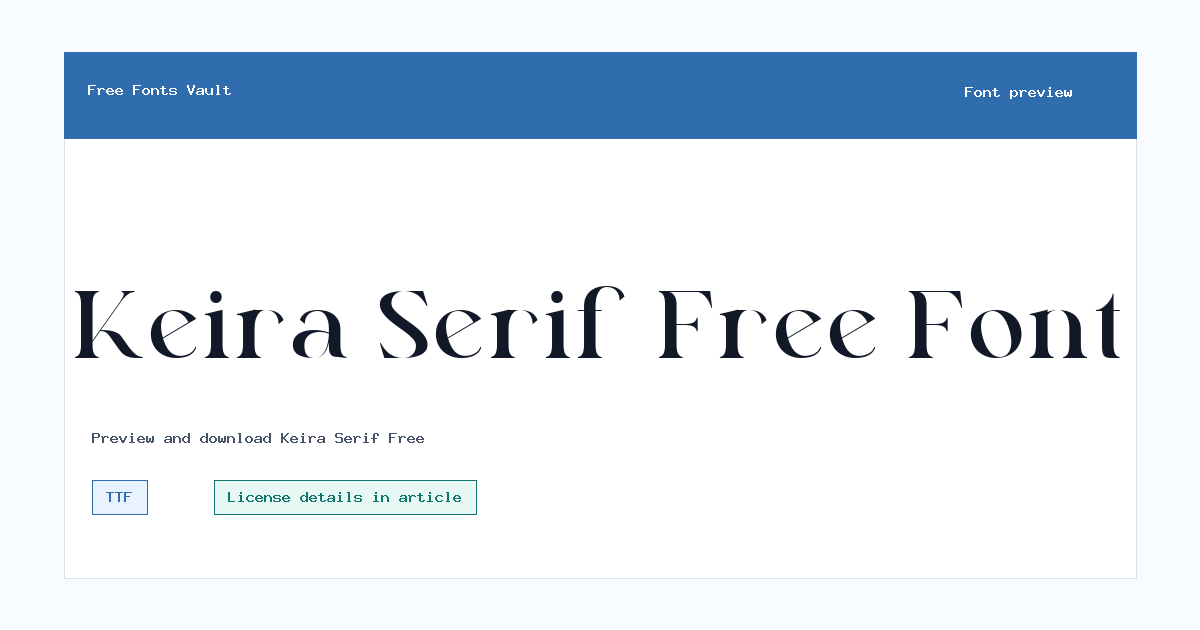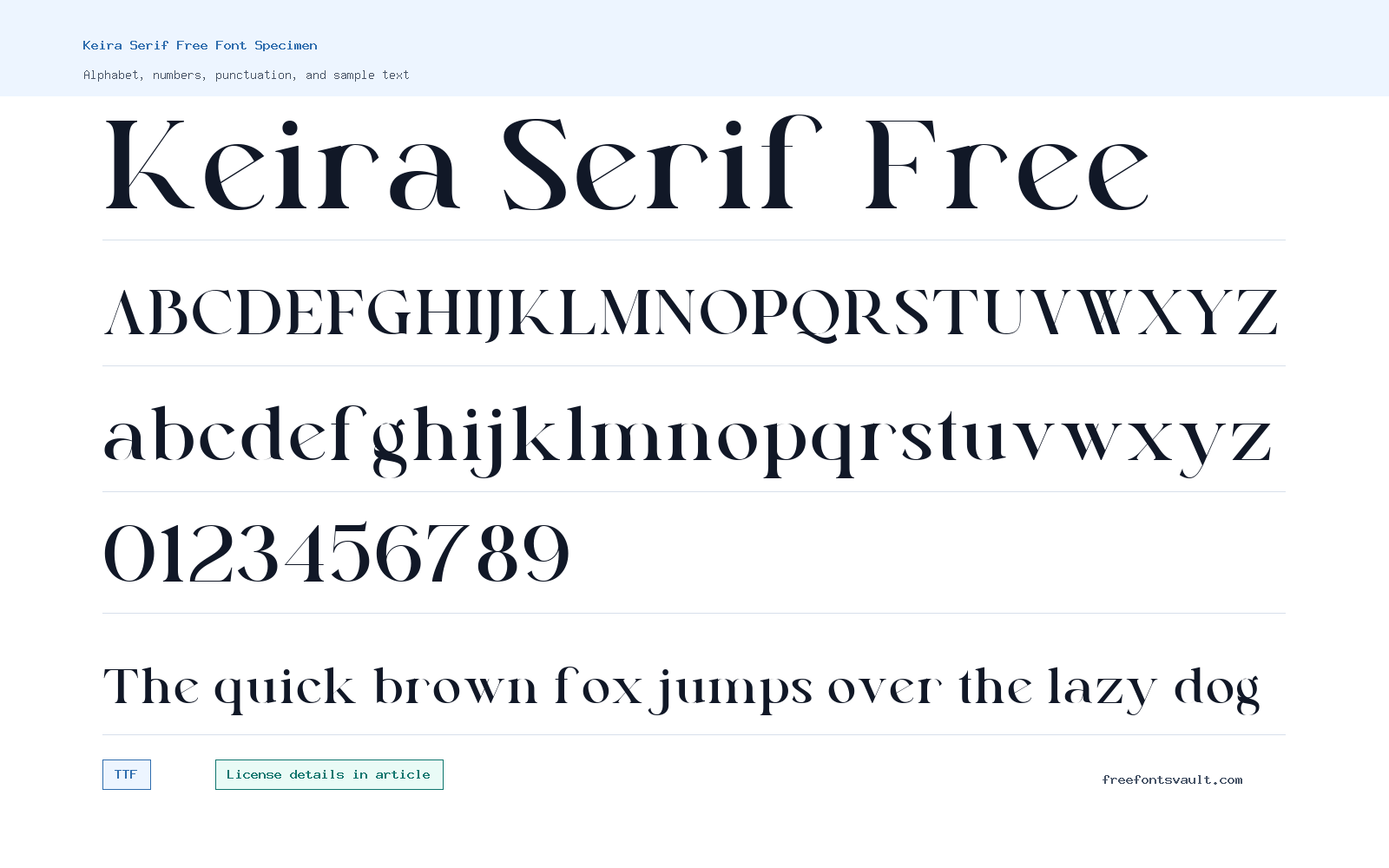
Keira Serif Free
- Designer Alghz
- Foundry Youthlabs Manufacture
Keira Serif Free is a high-contrast serif display font with a graceful, vintage-leaning look. It works best when the letters have room to stand out, such as in titles, invitations, labels, and boutique-style branding drafts.
About Keira Serif Free
Keira Serif Free has the polished feel of a decorative serif made for display use rather than everyday body text. Its elegant contrast and refined letter shapes suit short lines where style matters: logo concepts, fashion headings, wedding stationery, product labels, packaging mockups, and editorial titles. The available file is a regular-weight TTF, so it is easy to test in most design apps and font preview tools.
Use Keira for words and phrases that need a formal or vintage touch, but preview it carefully before using it in small sizes. Fonts with this kind of display character can lose clarity in dense paragraphs, compact UI labels, or long blocks of text. For cleaner layouts, pair it with a simple sans serif or a quiet text serif, and let Keira handle the main title, name, or decorative accent.
- Elegant serif display style suited to short, decorative text
- High-contrast look for headings, invitations, labels, and editorial layouts
- Useful for previewing logo concepts, packaging drafts, and boutique branding ideas
- Wedding invitations and formal stationery
- Editorial titles and fashion-inspired layouts
- Logo concepts and boutique branding drafts
- Packaging, product labels, and decorative headlines
- Short quotes, names, and display text
Try Keira with short words first, then test uppercase, lowercase, spacing, and punctuation in the preview box. It is a better fit for display text than for long reading copy, so use a simpler companion font for paragraphs and small interface text.
Is Keira Serif Free good for logos?
What kind of designs suit Keira Serif Free?
It suits headlines, invitations, labels, packaging mockups, editorial titles, fashion layouts, and decorative branding concepts.
Is Keira Serif Free suitable for body text?
It is better for short display text. For long paragraphs or small UI text, pair it with a simpler, more readable font.